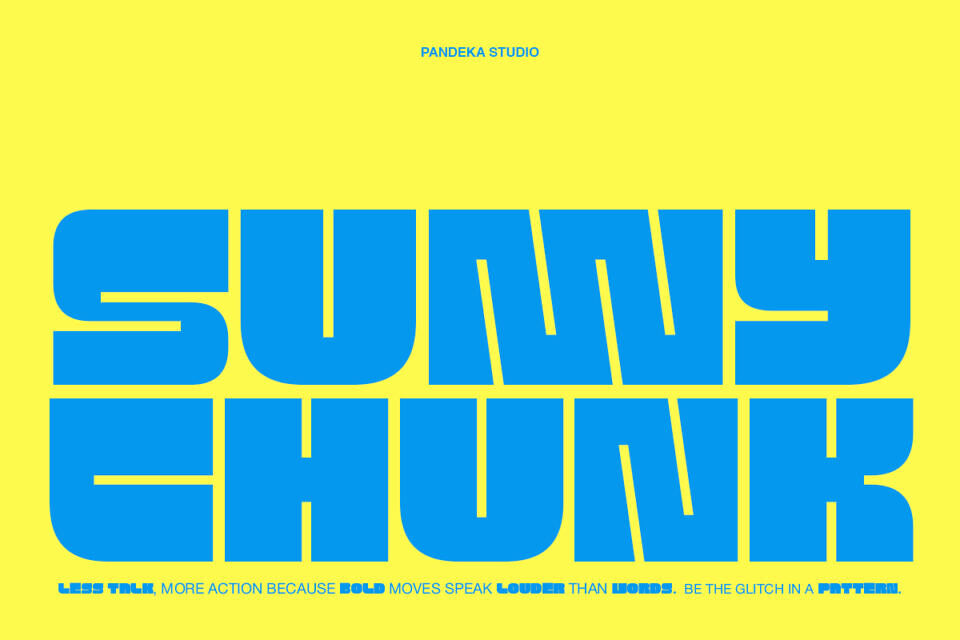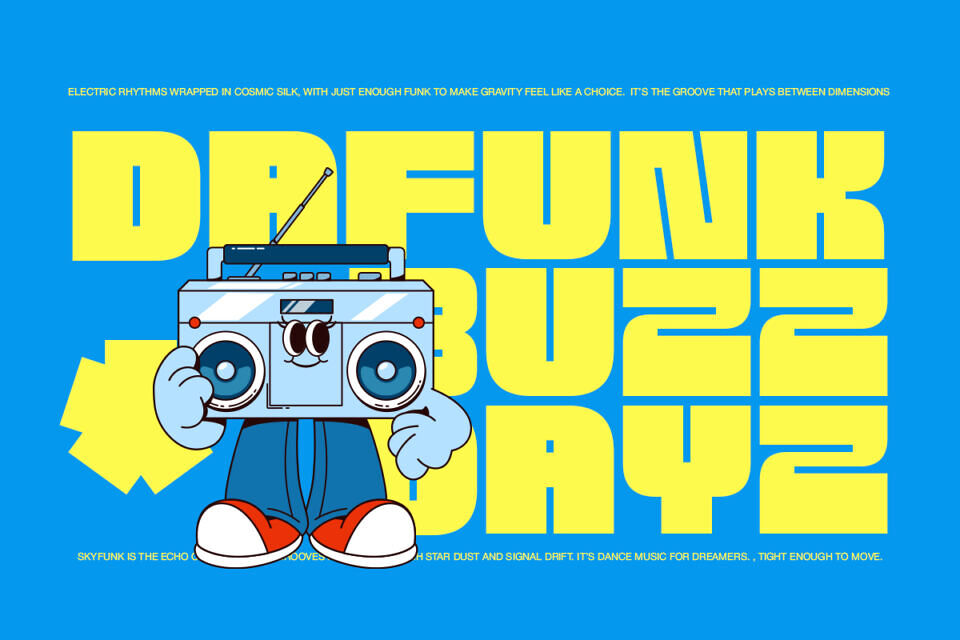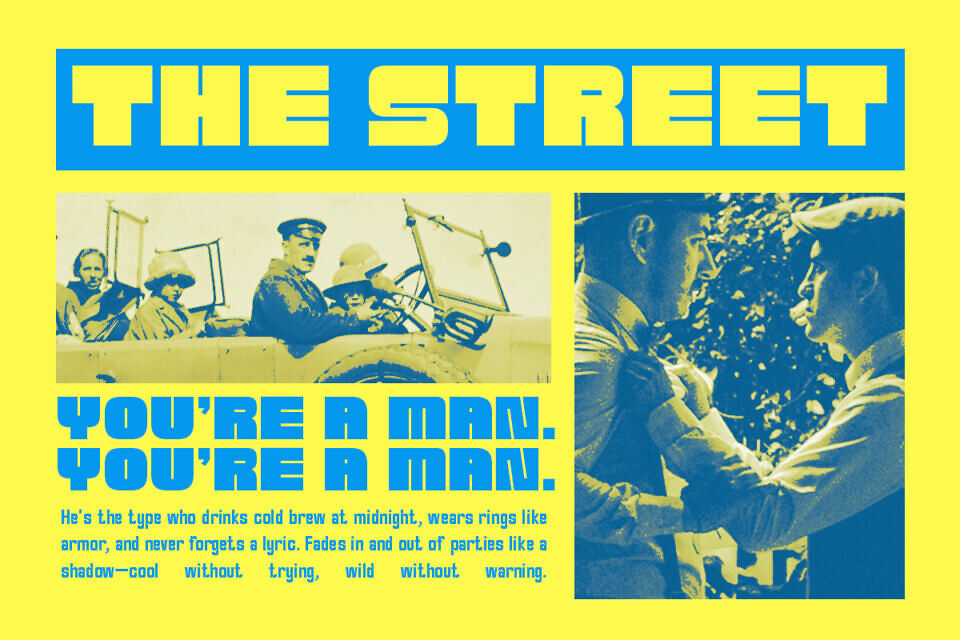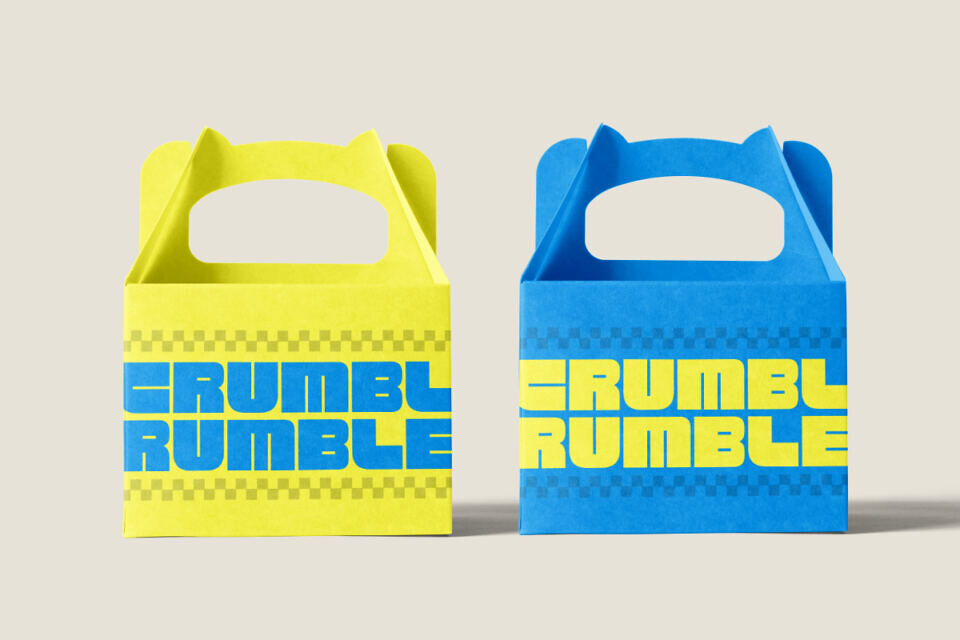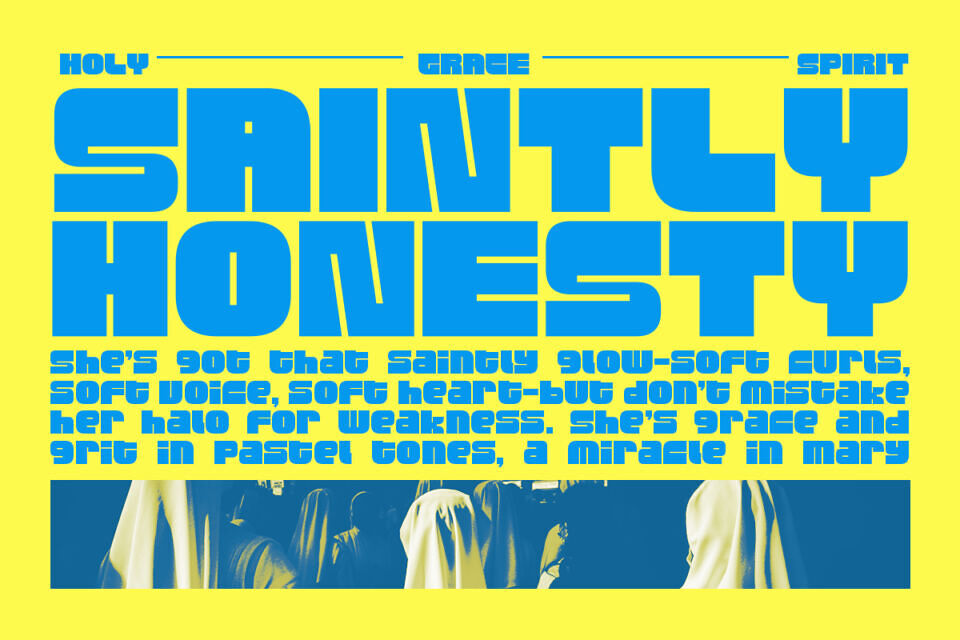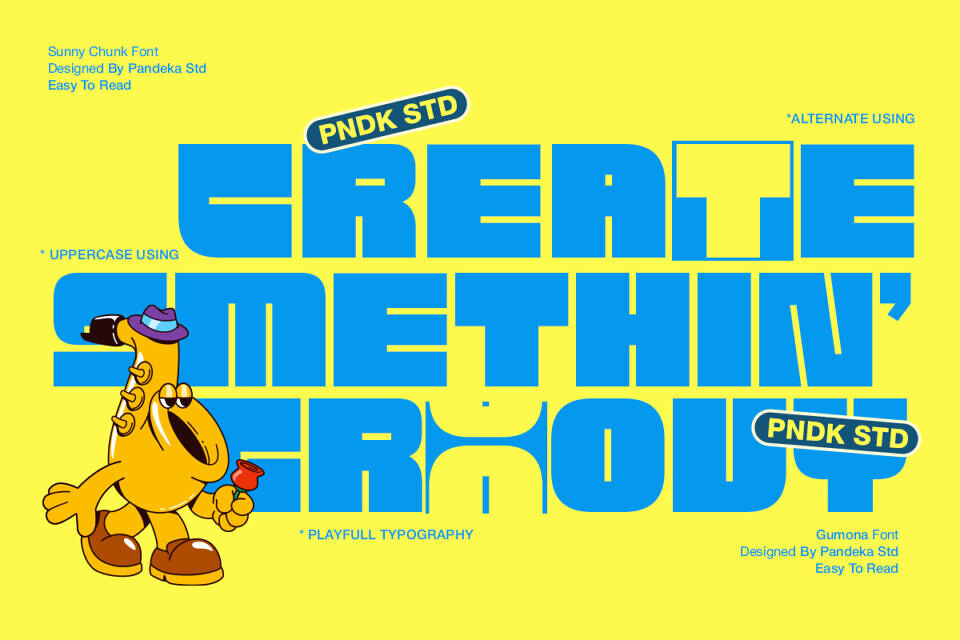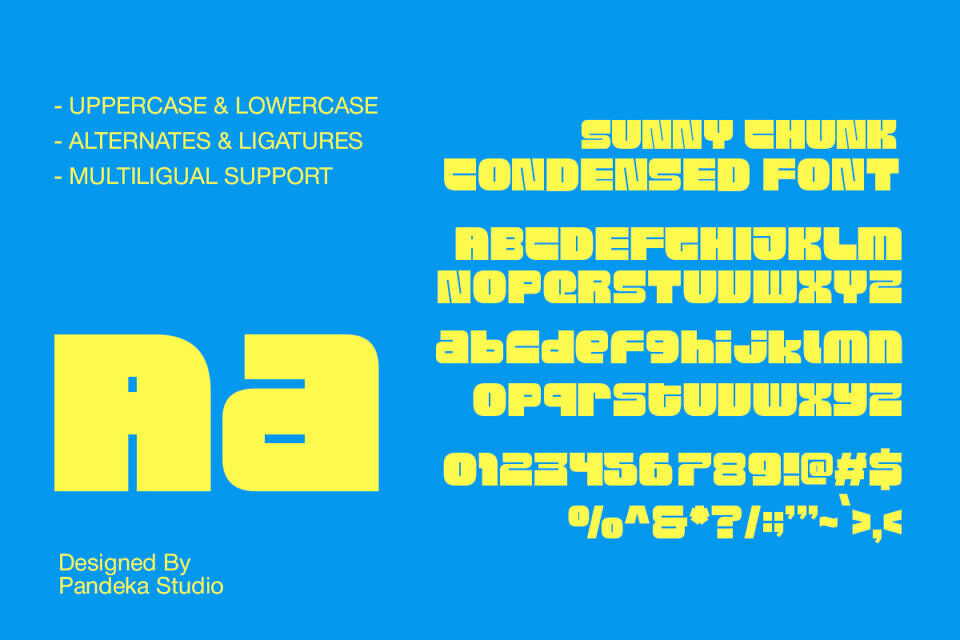
Sunny Chunk is a bold and groovy display font with a modern retro touch. Its condensed, chunky letterforms bring a strong visual impact, making it perfect for posters, headlines, packaging, music covers, and street-style branding. With its playful yet powerful vibe, Sunny Chunk ensures your typography stands out and grabs attention instantly.
The font comes in a single Regular style and is equipped with 15+ ligatures and alternates, giving you creative flexibility to craft unique letter combinations. It also supports uppercase, lowercase, numbers, punctuation, and multilingual characters, making it versatile for both local and global design projects. If you’re looking for a statement font with groovy energy and bold modern flair, Sunny Chunk is the perfect choice.